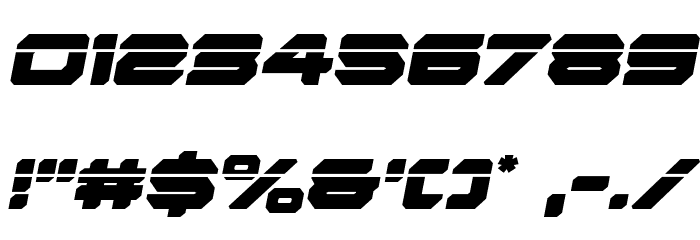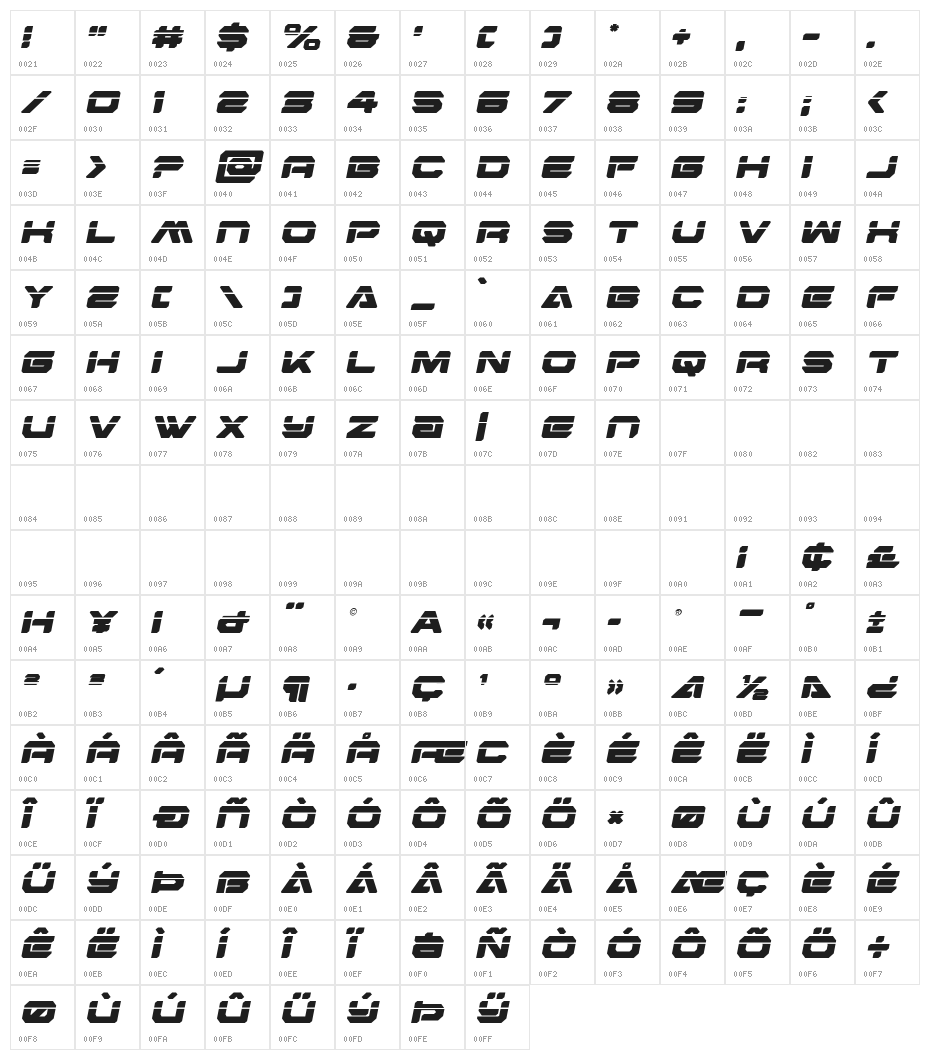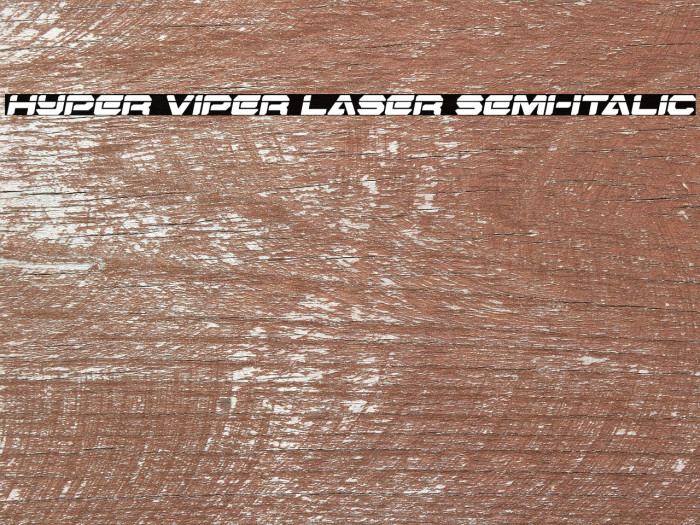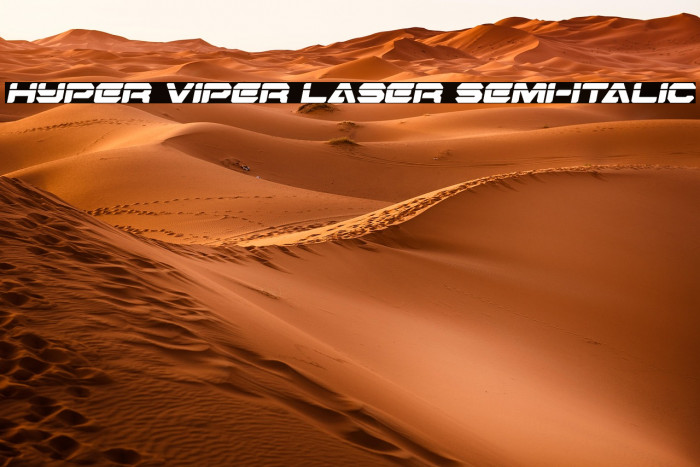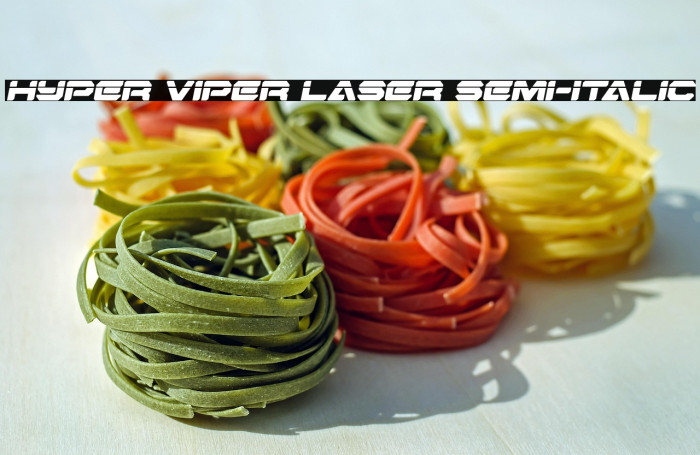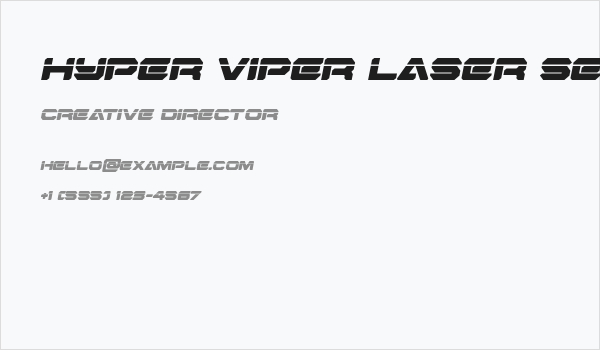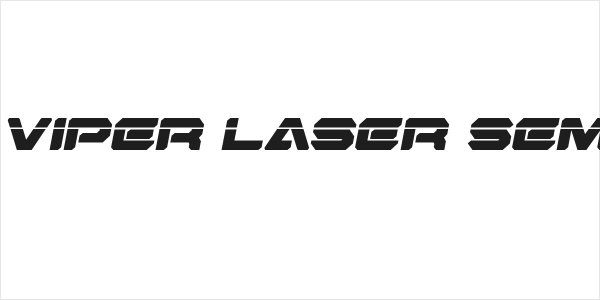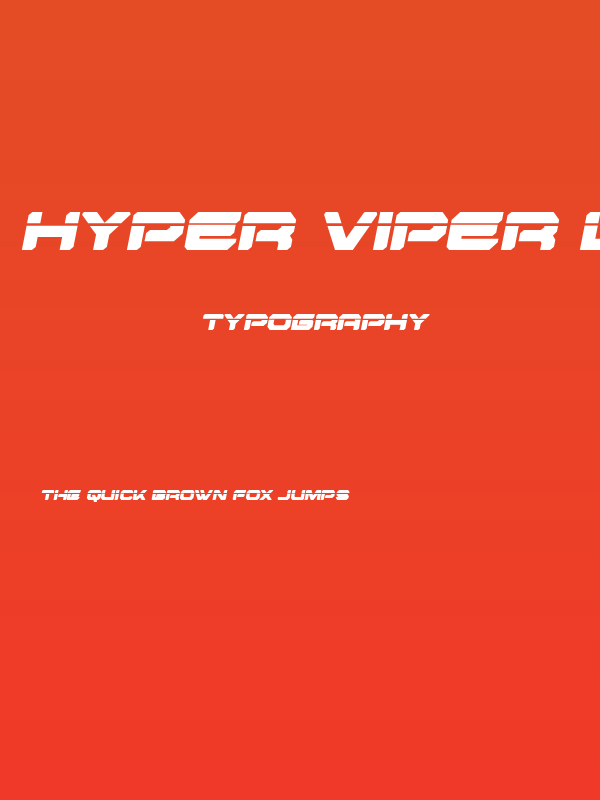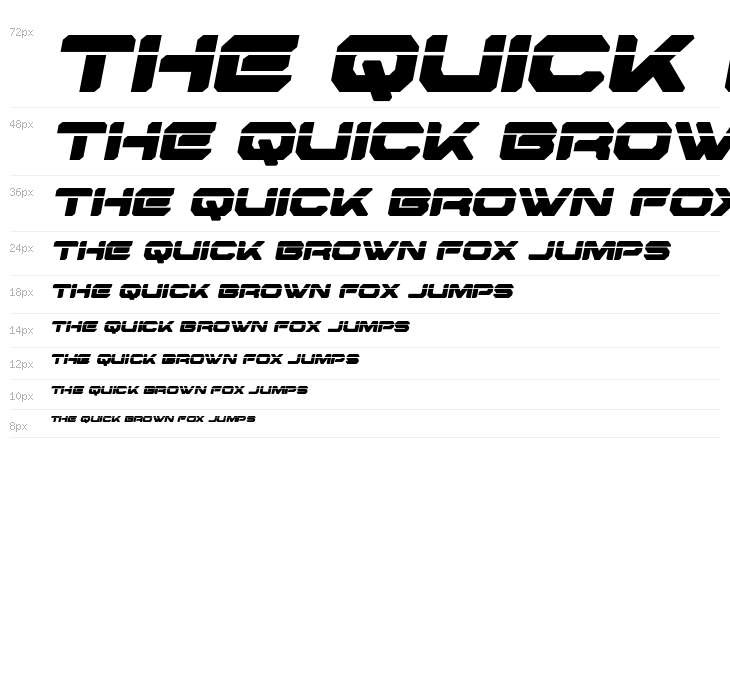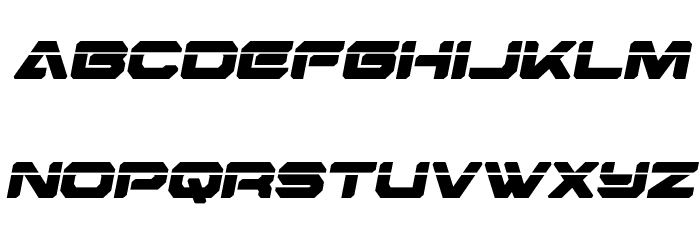
Hyper Viper Laser Semi-Italic Font
Hyper Viper Laser Semi-Italic Description
This font features a futuristic and dynamic design with sharp, angular edges and a semi-italic slant. The characters are bold and impactful, giving a sense of speed and modernity. The uppercase and lowercase letters maintain a consistent style, with a geometric structure that emphasizes horizontal lines and sharp diagonals. The numbers and special characters follow the same aesthetic, ensuring uniformity across all glyphs. The font's unique style makes it stand out, suitable for projects that require a strong, tech-inspired look.
| Proposed Projects | Ideal for sci-fi themed designs, video game titles, tech branding, and futuristic posters. |